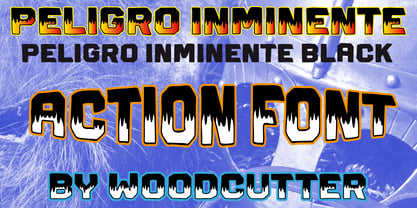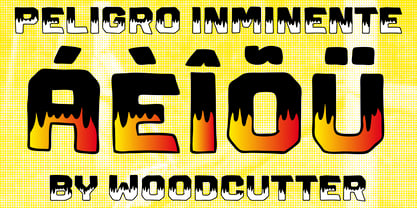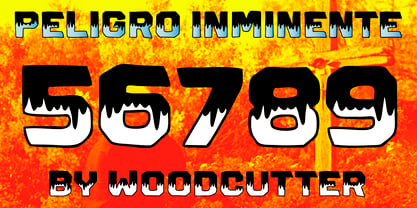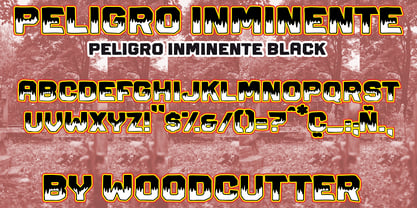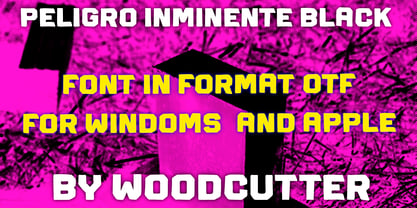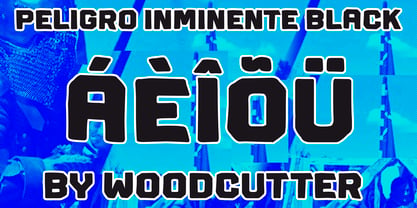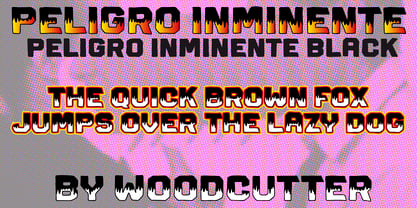
Peligro Inminente
by Woodcutter
The Peligro Inminente Font Family was designed by Jordi Manero and published by Woodcutter. Peligro Inminente contains 2 styles and family package options. More about this family
"Peligro Inminente" is a high-impact type family that fuses a futuristic aesthetic with the raw expressiveness of hand-drawn strokes. Composed entirely of uppercase letters and featuring full accent support, this typeface conveys urgency, tension, and energy, like a warning signal sent from an unstable future. Geometric forms coexist with imperfect, gestural lines, creating a powerful contrast between technology and humanity. The character of "Peligro Inminente" is defined by bold, angular, and decisive letterforms that avoid cold digital perfection. The contours intentionally display irregularities, reinforcing a handcrafted feel and adding personality and constant motion to the design. It is a typeface that seems to vibrate, as if on the verge of ignition. The family consists of two clearly differentiated styles. "Peligro Inminente" features letters split into two tones, simulating a visual effect where white flames begin to rise from the base of each character. This detail adds drama, depth, and a strong visual narrative, evoking danger, transformation, and alert. In contrast, "Peligro Inminente Black" presents a fully solid black version, more direct and forceful, ideal for compositions that require maximum graphic strength and clarity. This type family is perfect for event posters, music covers, editorial design, experimental branding, video games, film titles, or any project that demands an aggressive, futuristic, and tension-filled visual language.